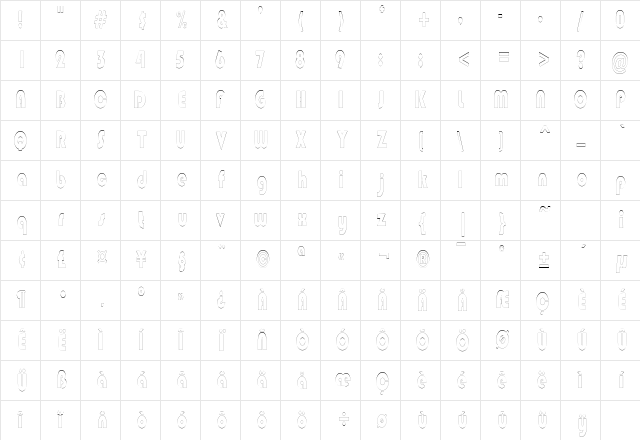
BongoBlackOutlineCondensed Regular
Design Context for BongoBlackOutlineCondensed
BongoBlackOutlineCondensed is built around its visual character rather than neutral utility - its distinctive forms are designed to make an impression at display sizes.
Font Pairing: Pair with a clean neutral sans-serif for body copy to let BongoBlackOutlineCondensed's character lead without overwhelming the composition.
Pro Tip: Use BongoBlackOutlineCondensed exclusively at display sizes - it was designed to be seen, not read at length. Let a neutral companion handle body copy.